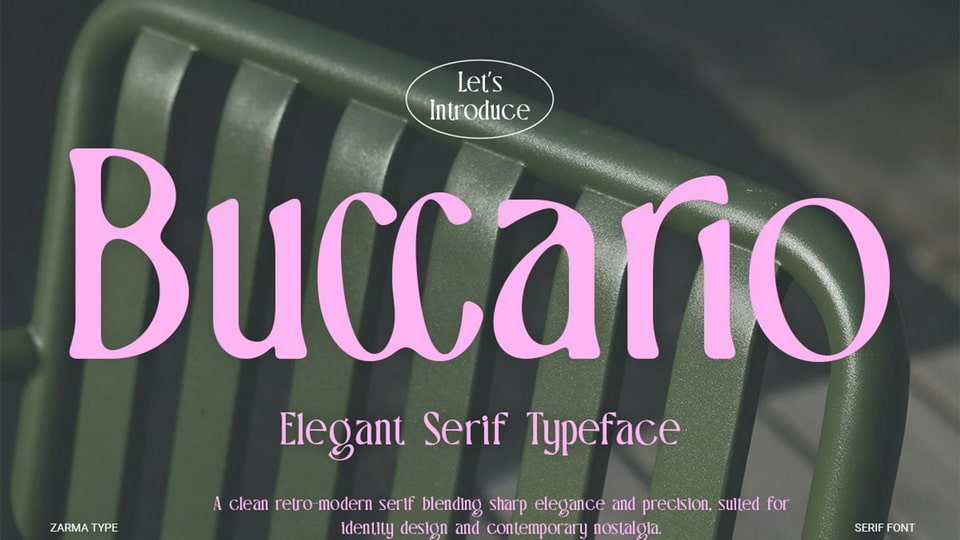
Download Buccario font, an elegant serif typeface that brings a fresh twist to retro and vintage design trends with its sophisticated curves, reversed contrast details, and high-legibility structure.
Designer: Zarma Type Foundry